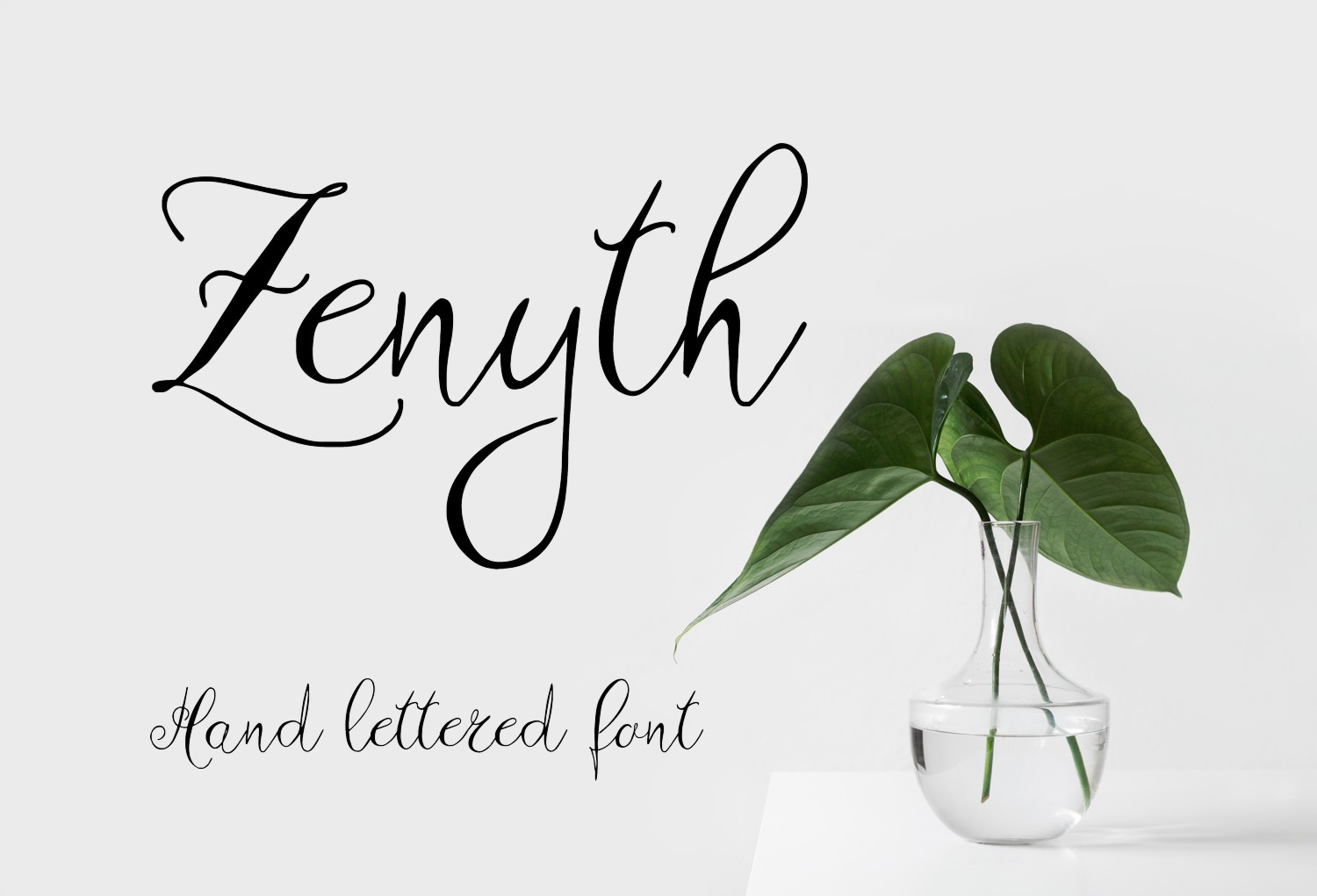
Zenyth Font
Introducing Zenyth hand crafted sript font.
Zenyth is perfect for wedding stationeries, product packaging, wall decals, branding projects, homeware designs - or simply as a text overlay to any background image.